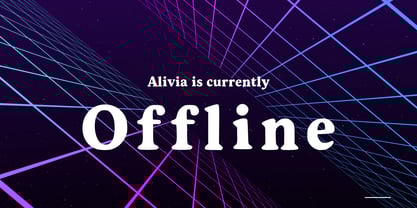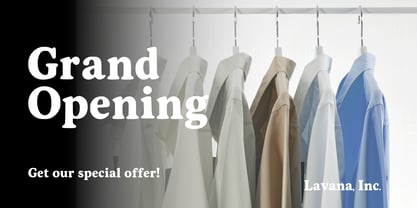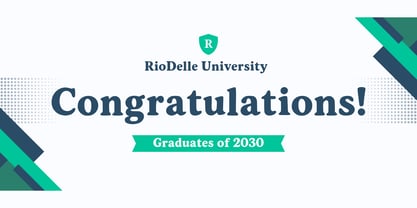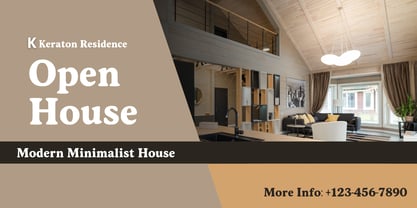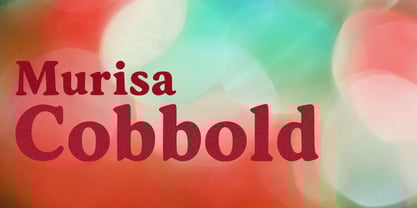
Murisa Cobbold
The Murisa Cobbold Font Family was designed by Lili Sadili and published by Murisa Studio. Murisa Cobbold contains 2 styles and family package options.
✨ Murisa Cobbold — Where Elegance Meets Authority Murisa Cobbold is a refined serif typeface crafted for those who value timeless sophistication and commanding presence. Every glyph is meticulously shaped to balance classical beauty with modern clarity, making it ideal for high-end branding, editorial layouts, luxury packaging, and statement-making headlines. 🧠 Intelligent Craftsmanship Murisa Cobbold blends sharp serifs with graceful curves, creating a rhythm that feels deliberate, confident, and effortlessly stylish. It’s a font that doesn’t just decorate—it defines. 🌍 Global Reach With full support for Eastern European languages, Murisa Cobbold is ready to serve international audiences with elegance and precision. Whether you're designing for Prague, Warsaw, or Budapest, this font speaks fluently across borders. 🎯 Versatile Sophistication From minimalist layouts to ornate compositions, Murisa Cobbold adapts seamlessly. It elevates logos, book covers, product labels, and digital assets with a voice that’s bold yet refined. 🔮 Why Choose Murisa Cobbold? Because ordinary fonts whisper. This one resonates